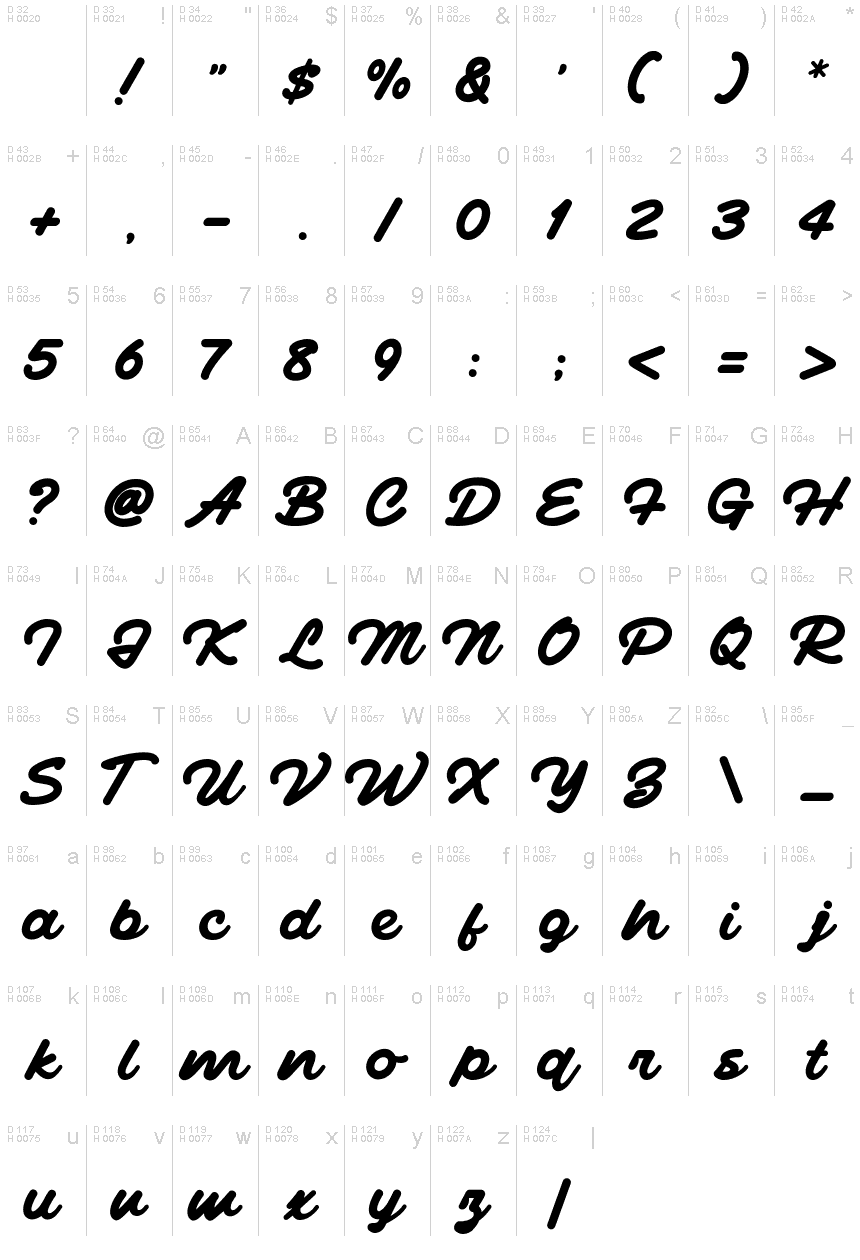
Yulio
Introducing Yulio, a bold script font designed by Khurasan. Perfect for adding an elegant touch to your projects, Yulio is ideal for creating invitations, logos, posters and more. Let your creativity flow with the stunning curves and details of this beautiful font.